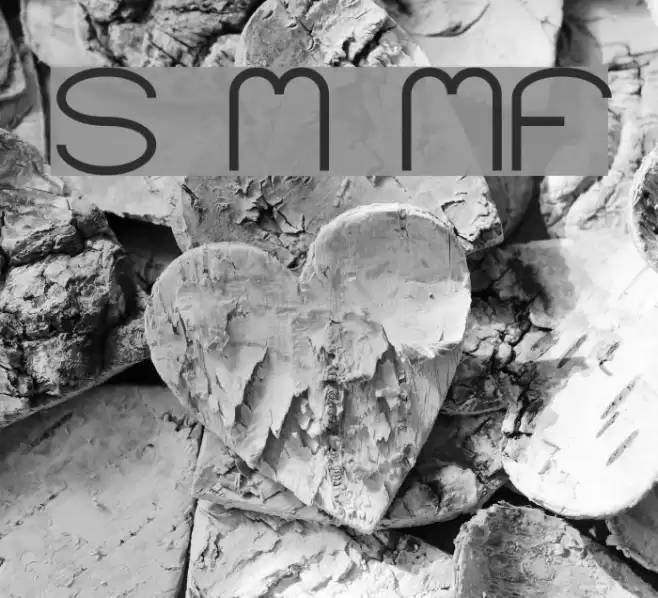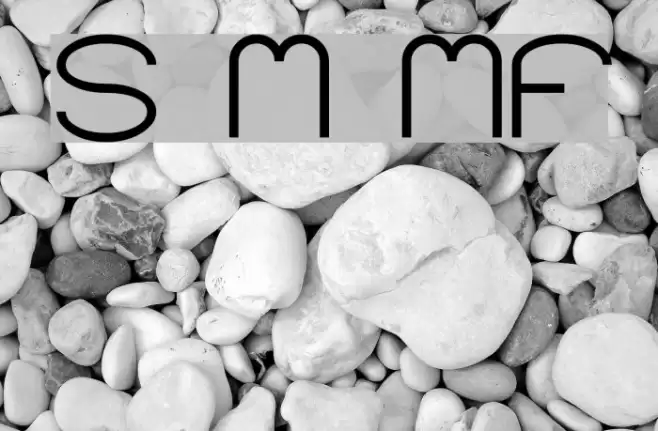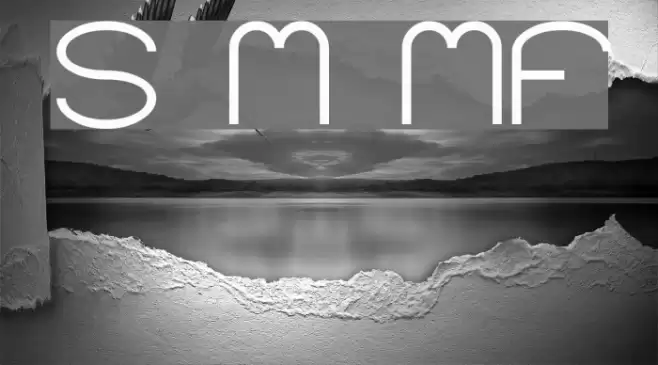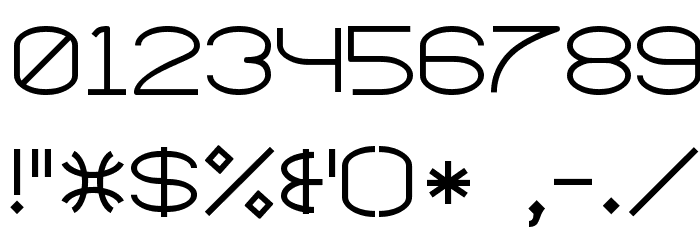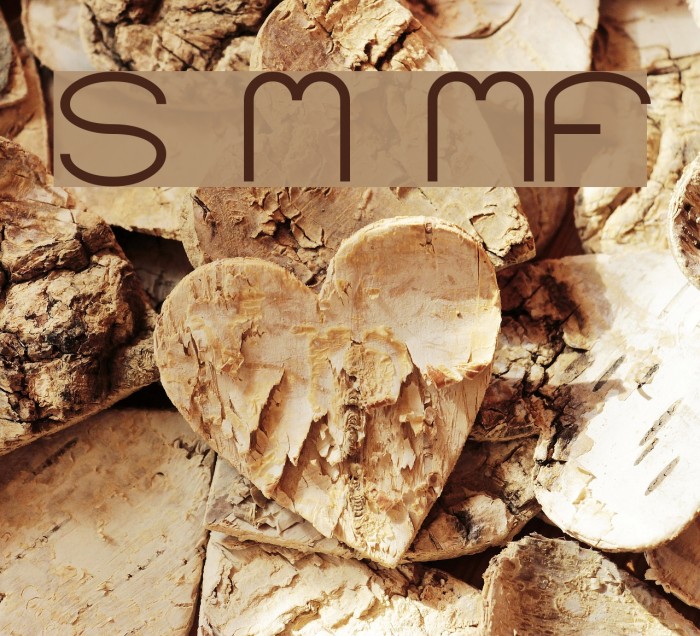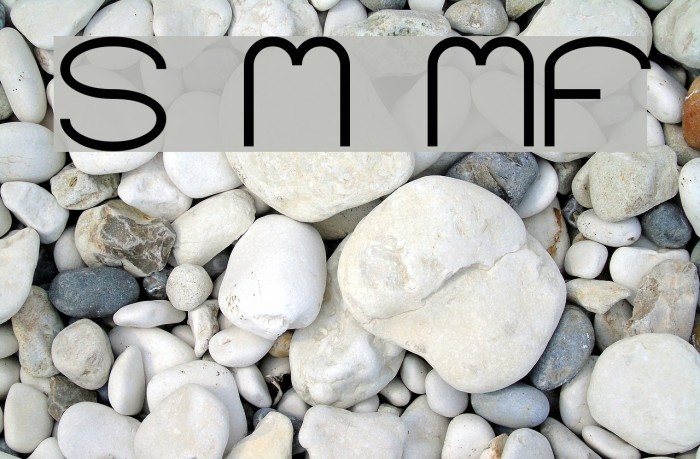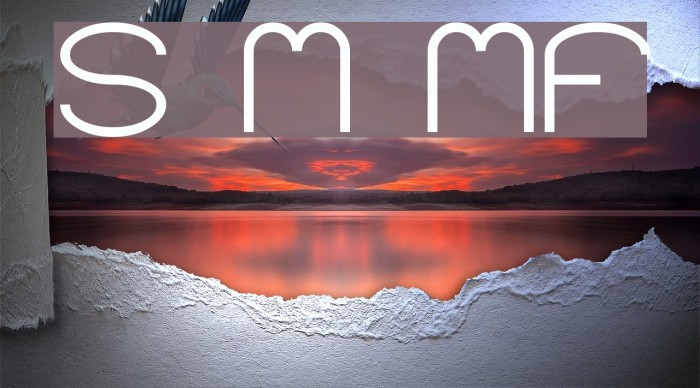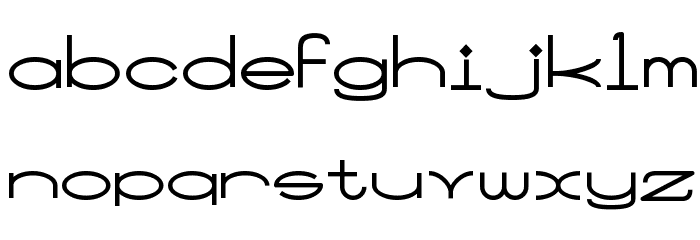
Santa Moncia MF Font
Santa Moncia MF Description
This font features a modern and geometric design, characterized by its clean lines and rounded edges. The uppercase letters are uniform in height, with a consistent stroke width that gives it a sleek and contemporary appearance. The lowercase letters maintain the same geometric style, with a slightly more playful touch due to their rounded forms. The numerals are clear and easy to read, following the same design principles as the letters. Special characters are well-integrated, maintaining the overall aesthetic. This font is ideal for projects that require a modern and stylish look, such as branding, advertising, and digital media.
A modern, geometric font with clean lines and rounded edges from Futuristic fonts.
- Proposed Projects: Branding, advertising, digital media, packaging design, and web design.
- Use Case: Headlines, Logos, Digital media